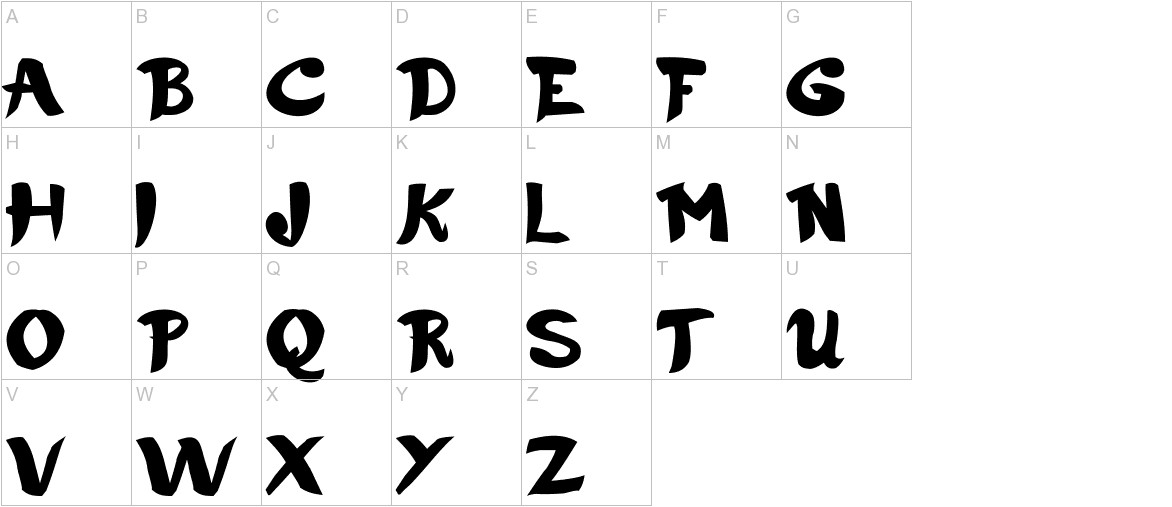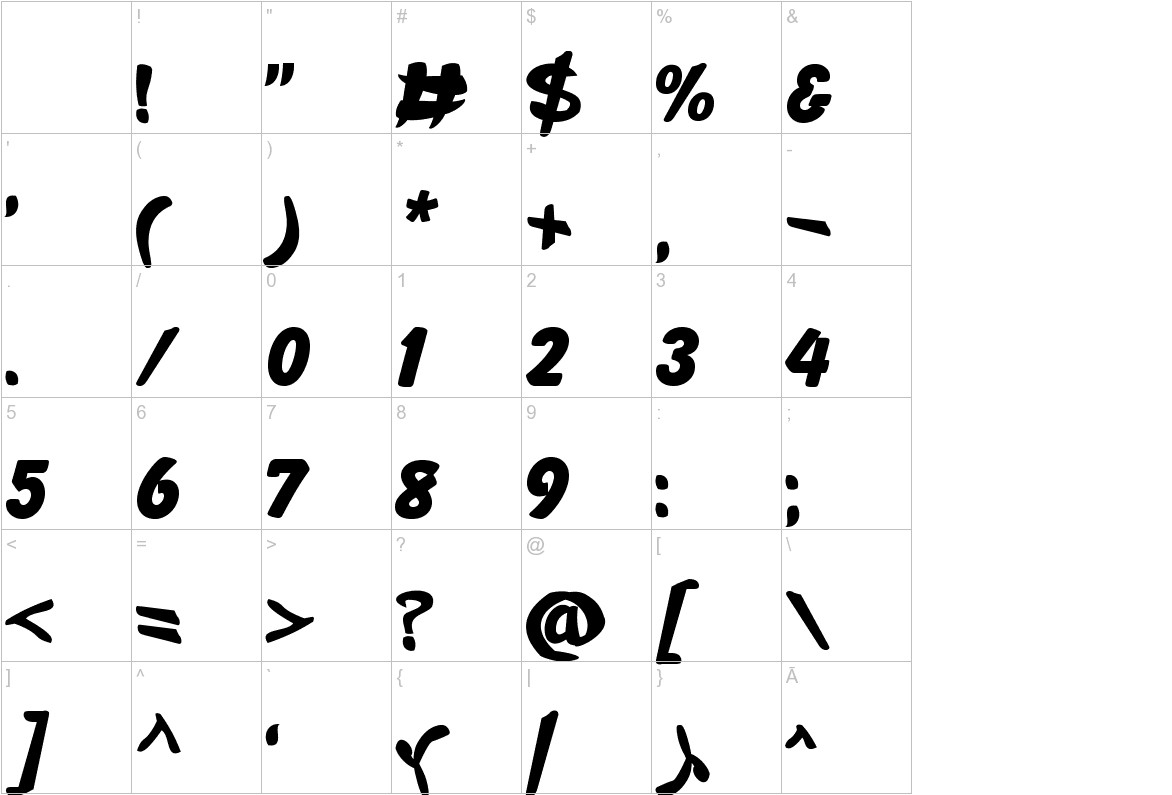
Un Americano A Parigi
AN AMERICAN IN PARIS font: directly from the Best movie by Vincente Minnelly, with GENE KELLY and LASLIE CARON,
the original font for all lovers.